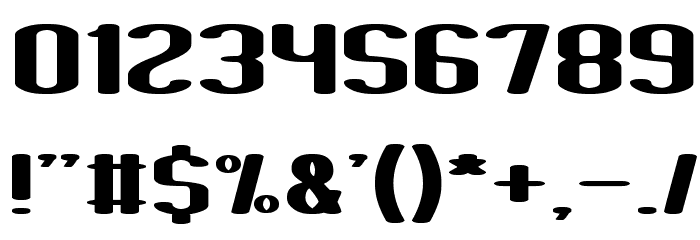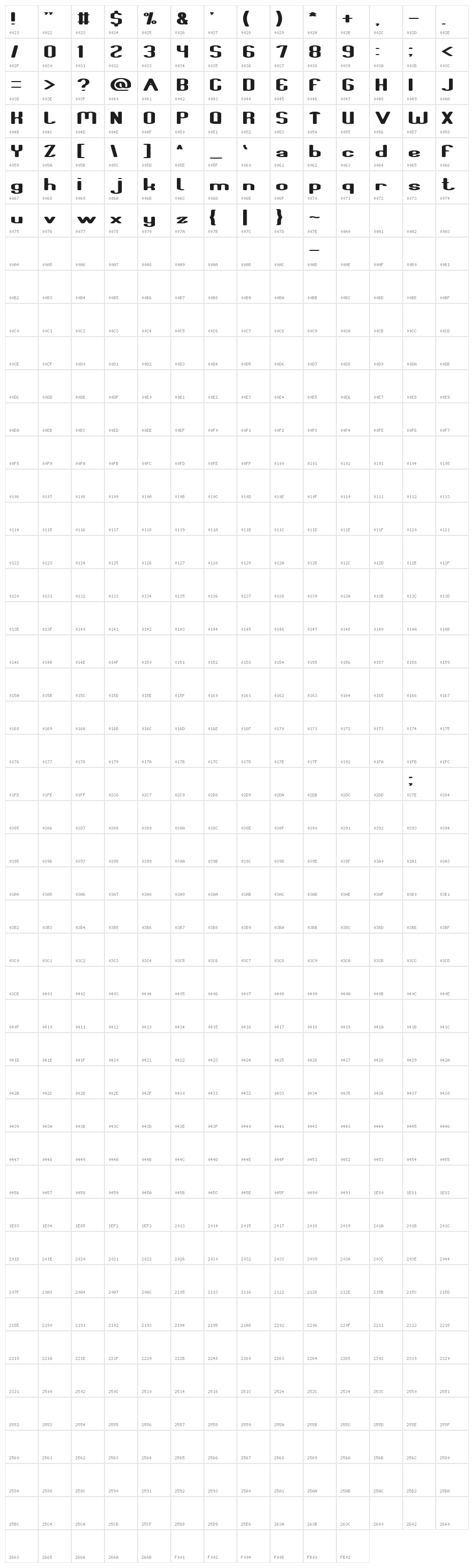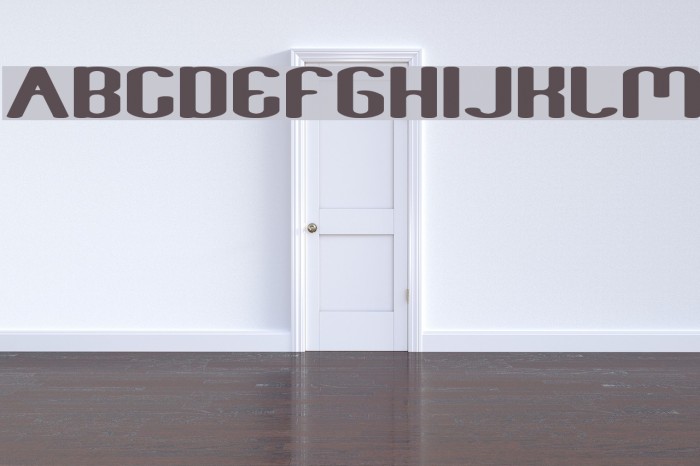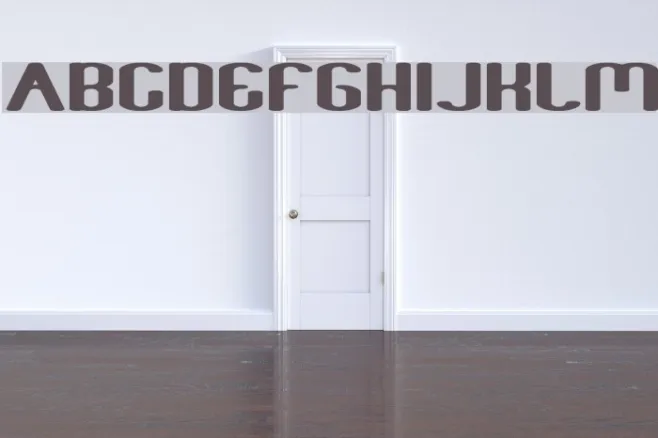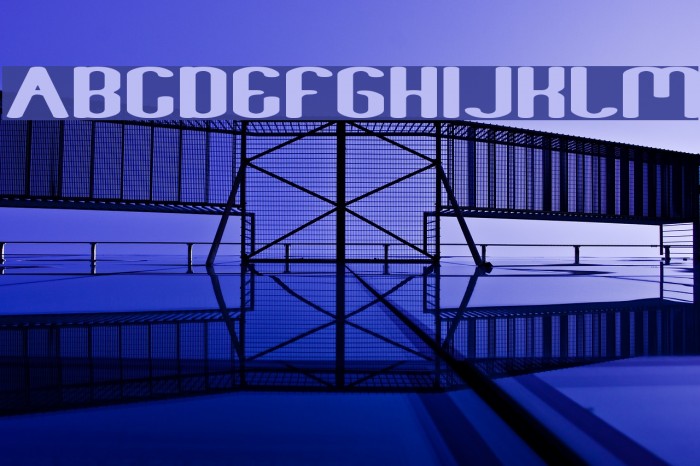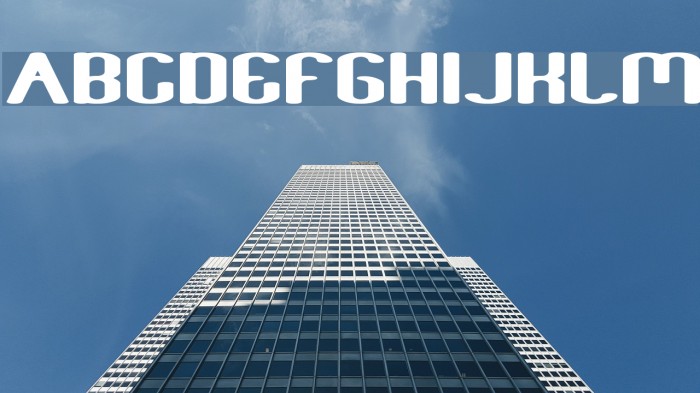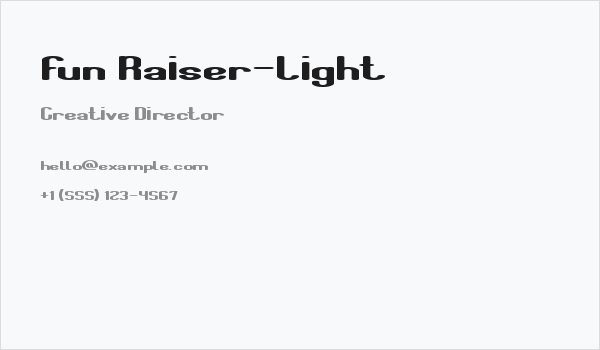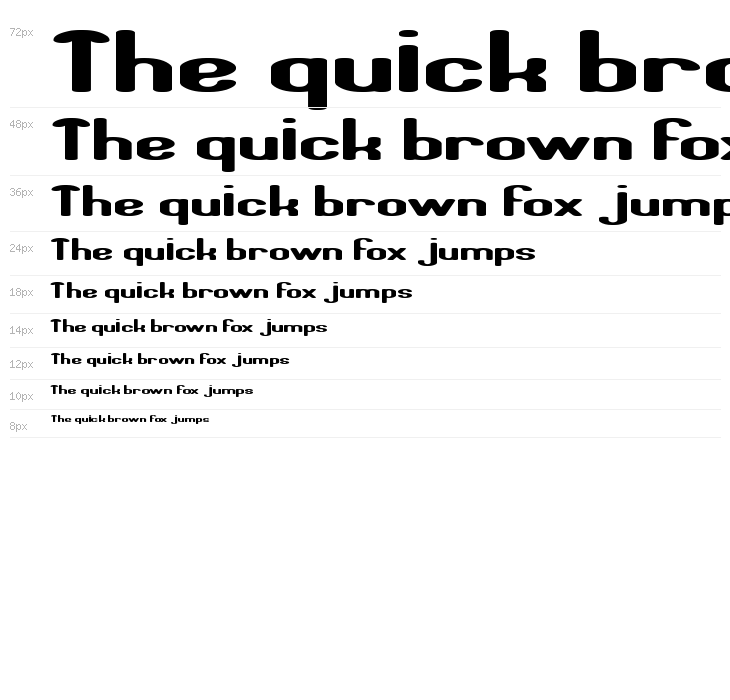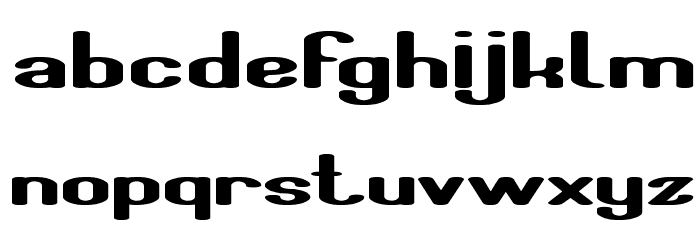
Fun Raiser-Light Font
Fun Raiser-Light Description
This font features a playful and rounded design, characterized by its smooth curves and slightly elongated forms. The uppercase letters are bold and prominent, while the lowercase letters maintain a consistent flow with a touch of whimsy. Numbers are clear and easy to read, with a uniform thickness that complements the overall style. Special characters are distinct and maintain the playful aesthetic, making them suitable for a variety of creative applications. The font's unique style is both approachable and versatile, lending itself well to projects that require a friendly and engaging appearance.